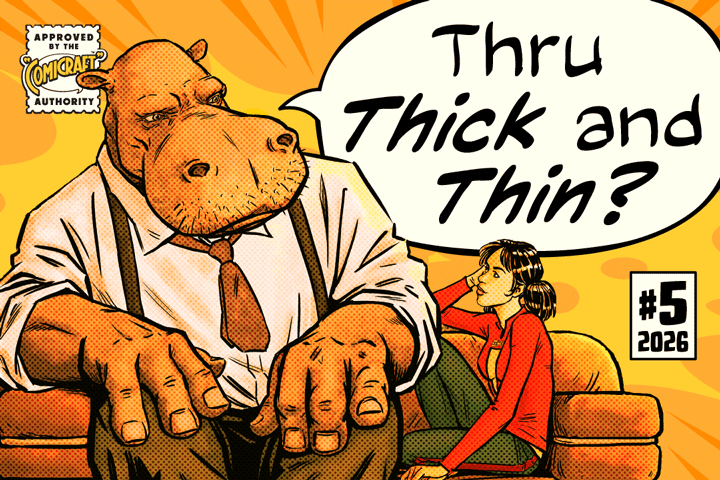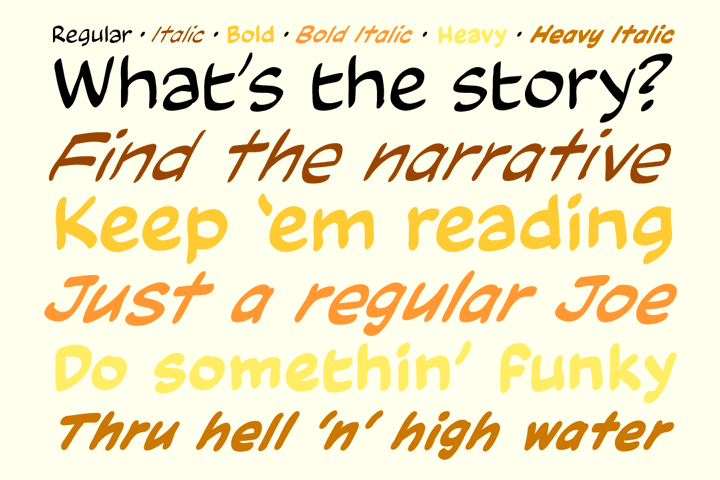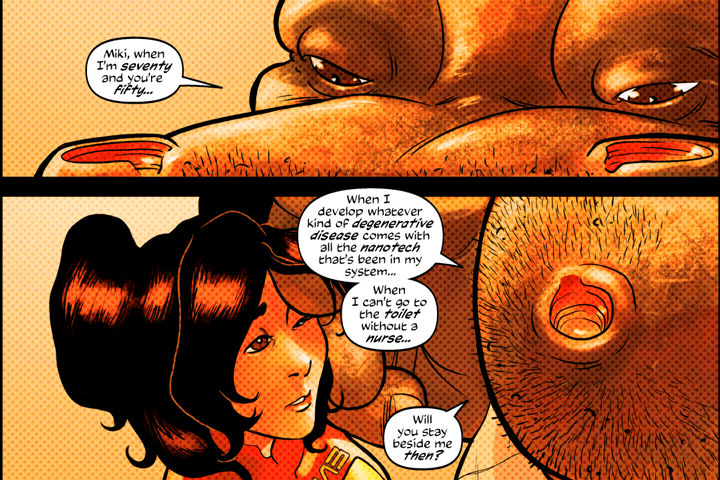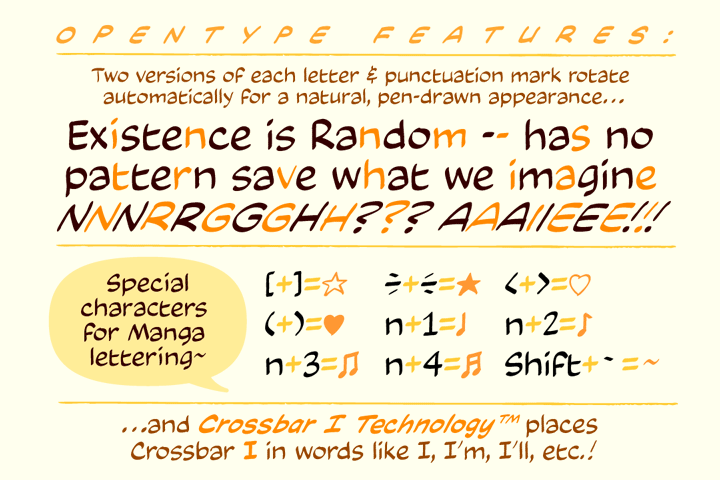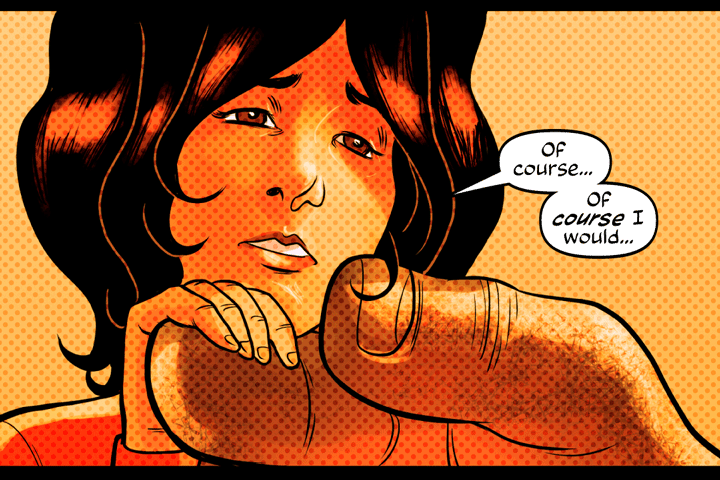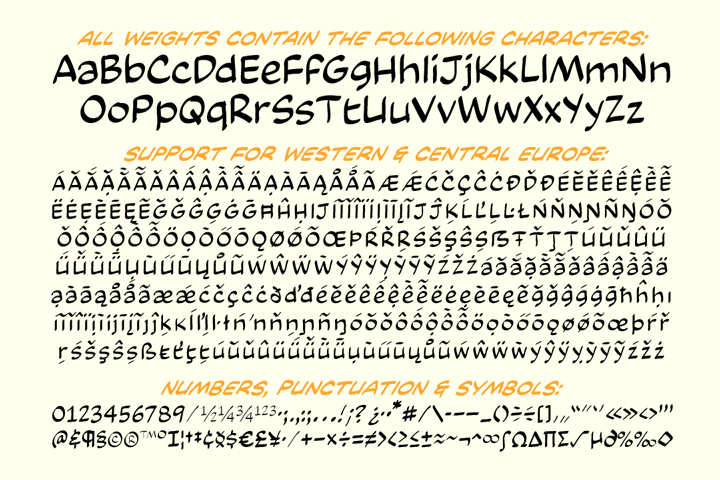
Thru Thick and Thin font
What’s the story, Joe? The theme. The narrative. Ya gotta keep people reading, Joe, simple as that. Keep them engaged. You’re a regular Joe but sometimes ya gotta be bold, italicized, do somethin funky with serifs. Keep people reading, make ‘em pay attention. They gotta follow ya thru hell ’n’ high water, thru good times ‘n’ bad, thruthicknthin.
Four weights with upper & lowercase
Plus: Automatic alternates, Manga characters & Crossbar I Technology™